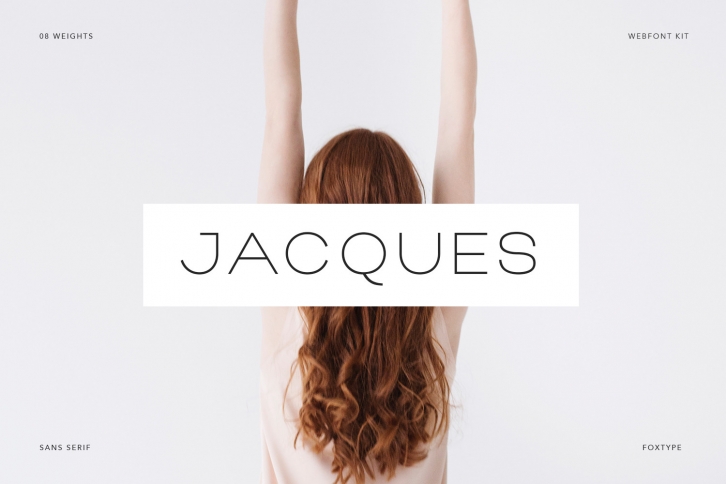
Jacques is a unique and modern display font. Its versatility and readability make it the perfect font for branding, logos, headlines, captions. and many more. Clean, minimalist, and quirky, when you will add this font to your most creative ideas, you will notice how it makes them stand out!